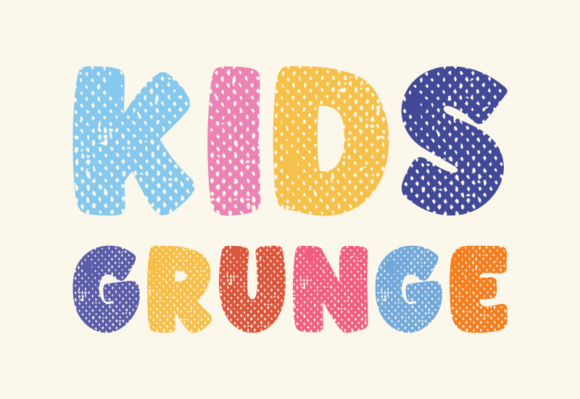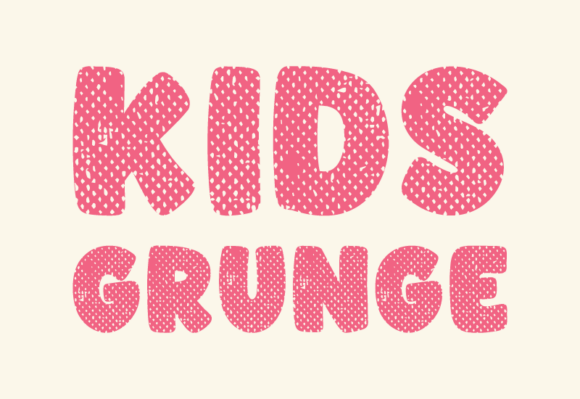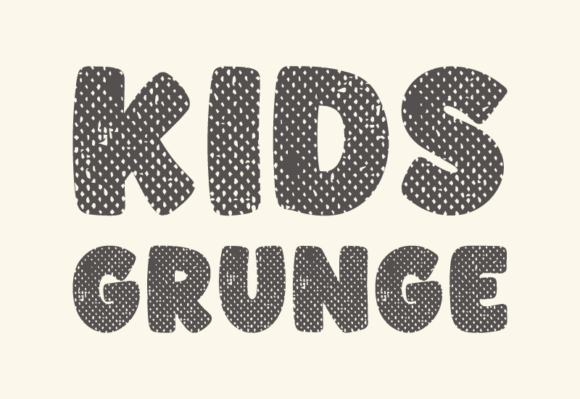
Unleash the Joy of Childhood Design with the Kids Grunge Font
Do you remember the excitement of creating your first handmade card or drawing a picture for your parents? The thrill of bringing your imagination to life, no matter how simple or imperfect it may have been? That same sense of wonder and joy is what drives the creation of the Kids Grunge Font, a playful typeface that captures the essence of childhood.
Designed to bring a smile to your face and a dash of whimsy to your designs, the Kids Grunge Font is the perfect tool for anyone looking to create child-friendly projects that exude a sense of adventure and glee. Whether you’re a seasoned designer or just starting out, this font is sure to add a touch of magic to your work, making it a valuable addition to any design toolkit.
- Unique Characteristics: Kids Grunge Font features a distressed, grungy texture that gives it a playful, edgy feel, making it perfect for use in designs targeting a younger audience.
- Characters and Glyphs: The font includes a wide range of characters and glyphs, including uppercase and lowercase letters, numbers, and punctuation marks, as well as a variety of special characters and symbols.
Designer Review: Kids Grunge Font
I recently had the chance to work with the Kids Grunge Font, and I must say it’s a unique and interesting addition to any design project. ✨ Here are some aspects that work well:
- Eye-catching and attention-grabbing aesthetic
- Perfect for adding a playful and youthful touch to designs
- Good for creating a bold and energetic vibe
However, there are also some limitations to consider: ⚠️
- May not be suitable for formal or professional designs
- Can be overwhelming if used excessively
- Limited versatility for different design styles
Overall, I think the Kids Grunge Font is a great choice for projects that require a fun and carefree vibe. It’s perfect for children’s products, youth-related designs, or anything that needs a bold and playful touch. Just be mindful of its limitations and use it sparingly to avoid overwhelming the design.
The Kids Grunge Font is perfect for creating playful and edgy designs, such as:
- Children’s book covers and illustrations.
- Music festival posters and flyers.
- Social media graphics and advertisements.
- Event invitations and party decor.
For optimal readability, we recommend using Kids Grunge at font sizes between 24-48 points, with a line height of at least 1.2-1.5 times the font size. This will help ensure that the text remains legible and visually appealing.